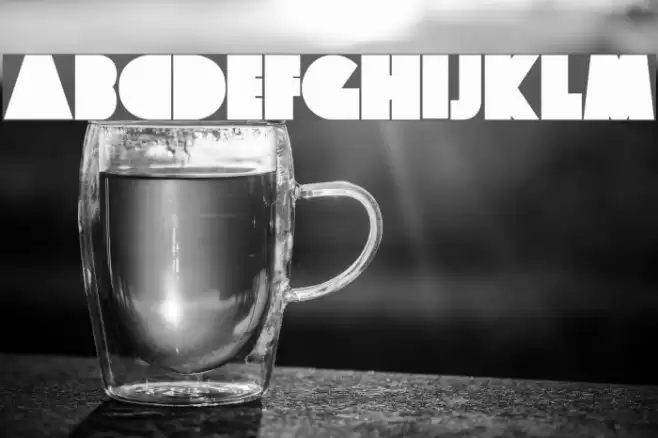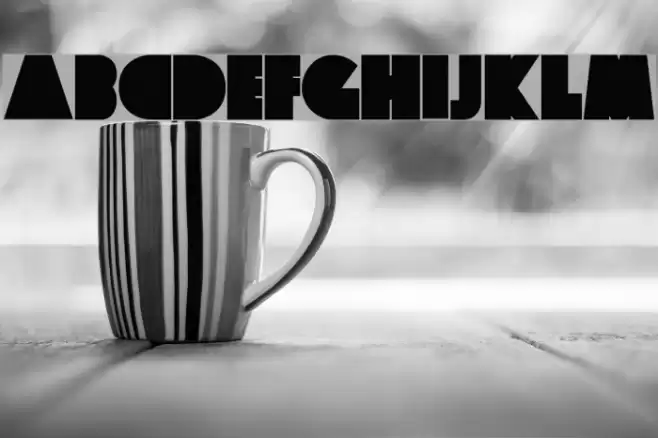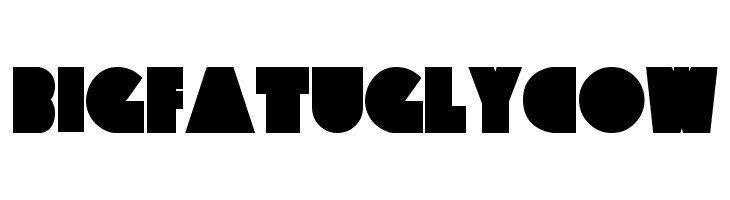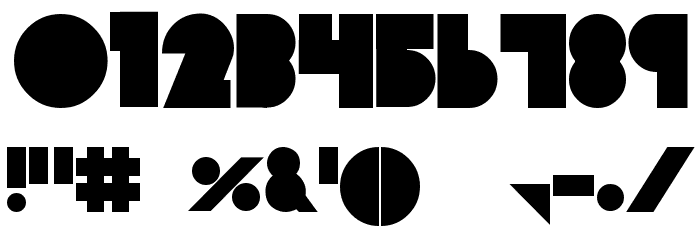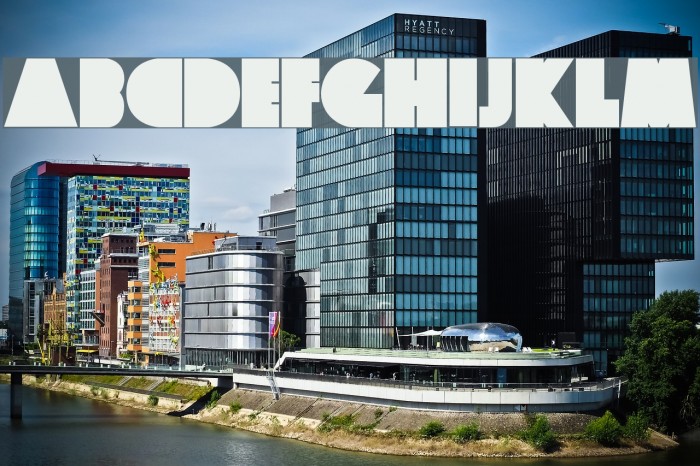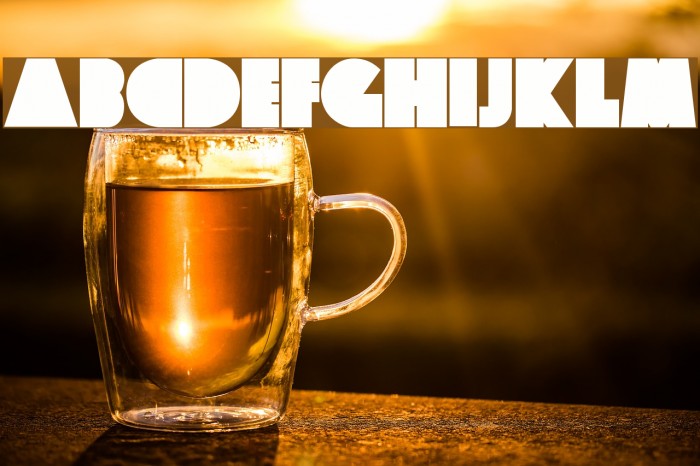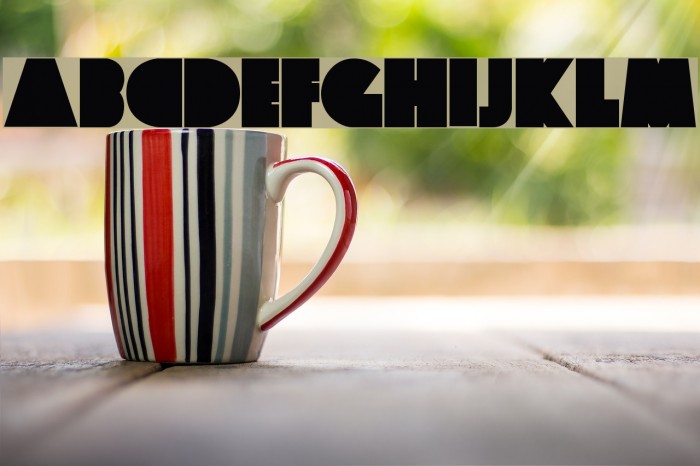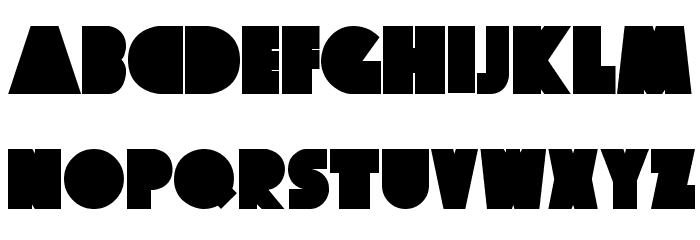
BigFatUglyCow Font
BigFatUglyCow Description
This font is characterized by its bold, geometric shapes and high visual impact. Each letter is constructed with thick, block-like forms that create a strong presence on the page. The uniformity in stroke width across all characters gives it a cohesive look, while the sharp angles and straight lines add a modern and edgy feel. The font's design is highly stylized, making it ideal for attention-grabbing headlines or logos. Its unique style is reminiscent of retro or vintage aesthetics, yet it maintains a contemporary appeal. The numbers and special characters follow the same bold and geometric design, ensuring consistency throughout the typeface.
A bold, geometric font with a modern, edgy style from Crazy fonts.
- Proposed Projects: Ideal for branding, poster design, headlines, and any project requiring a strong visual impact.